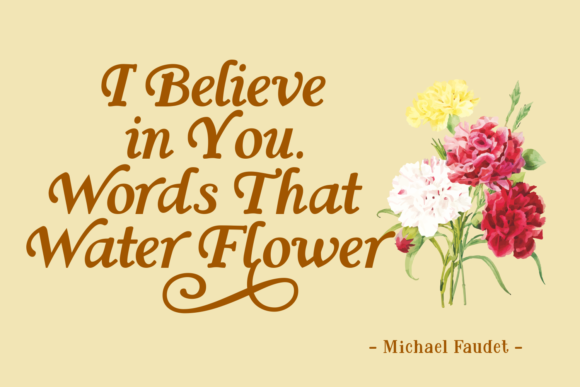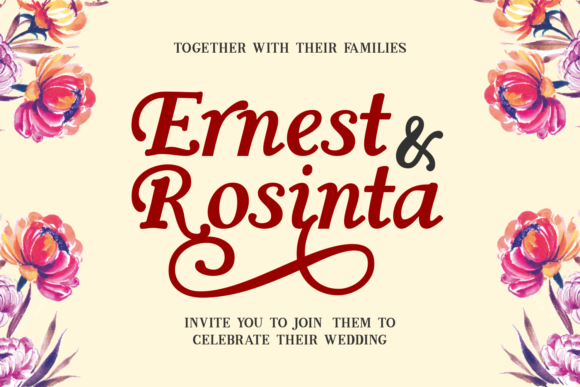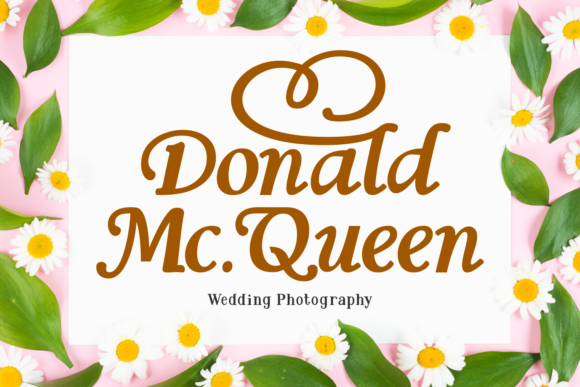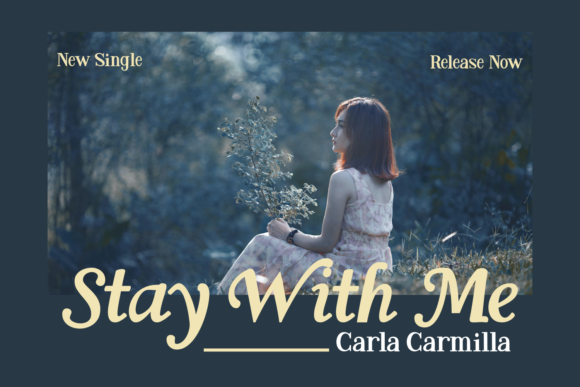
Candle Karmilla Font: Elevate Your Designs with Elegance
In the world of typography, fonts play a crucial role in conveying the tone and aesthetic of a design. For crafters, designers, and artists, finding the perfect font can be a game-changer. If you’re on the hunt for a font that exudes elegance and sophistication, look no further than Candle Karmilla. This stunning display font is sure to elevate your designs and leave a lasting impression.
What is Candle Karmilla Font?
Candle Karmilla is an elegant and distinct display font that has taken the design world by storm. Its unique and refined style makes it perfect for a variety of designs, from wedding invitations and branding materials to packaging and advertising. This font is designed to make a statement, and its versatility ensures that it can be used in numerous contexts.
Key Features of Candle Karmilla Font
So, what sets Candle Karmilla apart from other fonts? Here are some of its key features:
- Elegant and Distinctive Design: Candle Karmilla boasts a sophisticated and refined design that is sure to turn heads.
- Stunning on a Variety of Designs: Whether you’re working on a wedding invitation, a logo, or a social media graphic, Candle Karmilla looks stunning on a variety of designs.
Why Choose Candle Karmilla Font?
With so many fonts available, why should you choose Candle Karmilla? Here are just a few reasons:
- Instantly Elevate Your Designs: Candle Karmilla has the power to instantly elevate your designs and give them a professional, polished look.
- Versatile and Flexible: This font can be used in a variety of contexts, from formal events to everyday branding materials.
How to Use Candle Karmilla Font
Using Candle Karmilla is incredibly straightforward. Here are a few tips to get you started:
- Pair it with Other Fonts: Candle Karmilla looks stunning when paired with other fonts. Experiment with different combinations to find the perfect look for your design.
- Experiment with Swashes and Glyphs: With its PUA encoding, Candle Karmilla offers a range of swashes and glyphs to play with. Don’t be afraid to get creative and try new things!
- Use it for Headings and Titles: Candle Karmilla is perfect for headings and titles, where its elegant design can really shine.
In conclusion, Candle Karmilla is an exceptional font that is sure to elevate your designs and take them to the next level. Its elegant and distinctive design, combined with its PUA encoding and versatility, make it a must-have for crafters, designers, and artists. Whether you’re working on a wedding invitation, a logo, or a social media graphic, Candle Karmilla is the perfect choice. So why wait? Download Candle Karmilla today and start creating stunning designs that will leave a lasting impression.